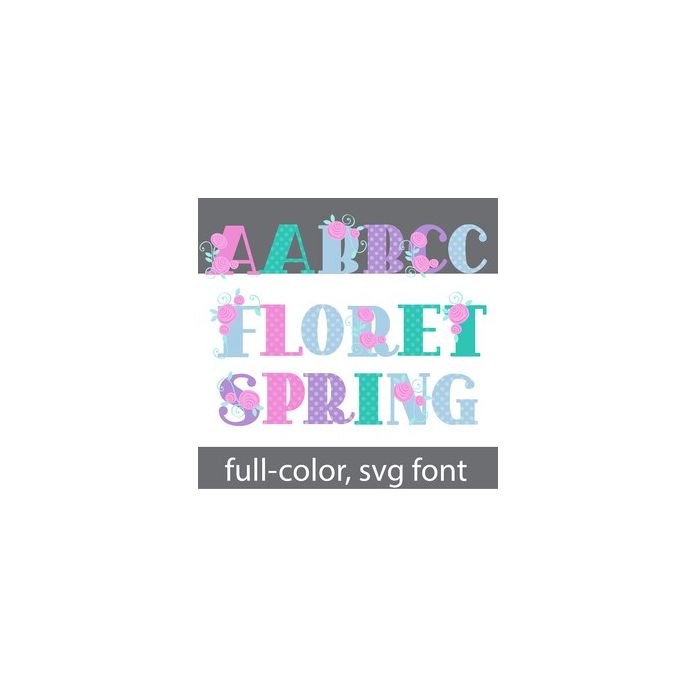
This full-color font features beautiful flowers throughout. There is an alt case w/ additional colors you can access through your system or Silhouette's glyph map.